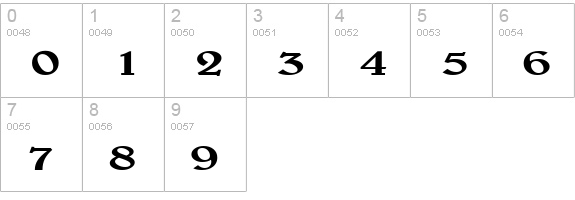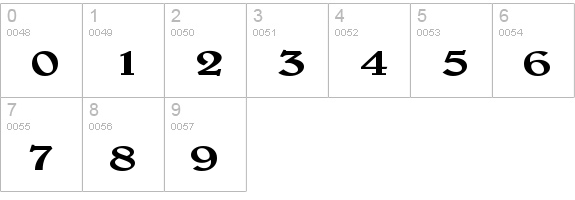
Blew Extended Normal is the standard, neutral, extended-width variant in the Blew typeface family \xE2\x80\x94 well suited to general body text, paragraphs, and standard typographic work.
The Blew Extended Normal font is a sleek and modern typeface that exudes sophistication and elegance. Its elongated letterforms and clean lines make it perfect for a wide range of design projects, from branding to editorial design. The font's balanced proportions and sharp edges give it a contemporary look that is both striking and versatile. What sets Blew Extended Normal font apart is not just its aesthetic appeal, but also its accessibility. This font is available for free download at FontsMarket.com, making it a valuable resource for designers and creatives looking to add a touch of sophistication to their work without breaking the bank. Whether you're working on a website, a print project, or anything in between, Blew Extended Normal font is sure to elevate your design and make a lasting impression.